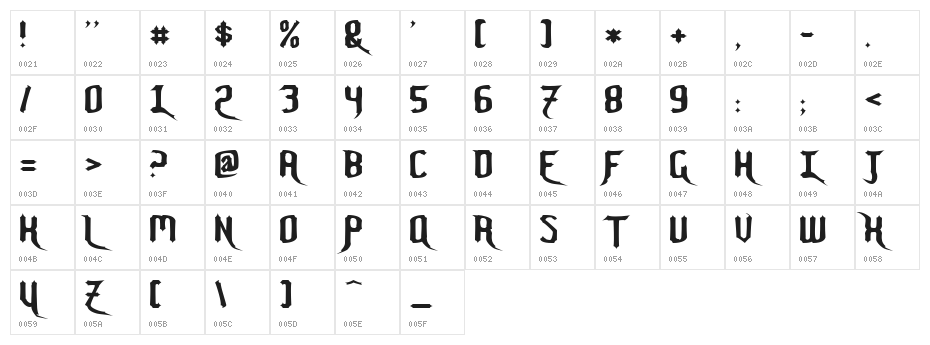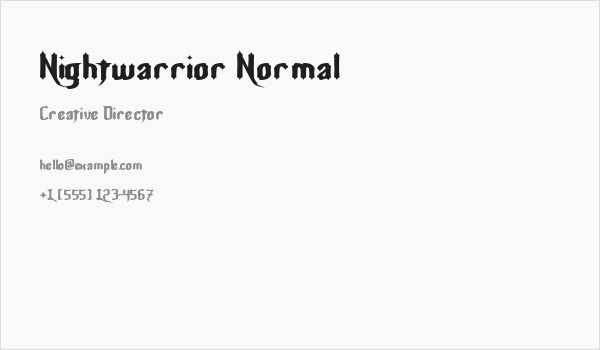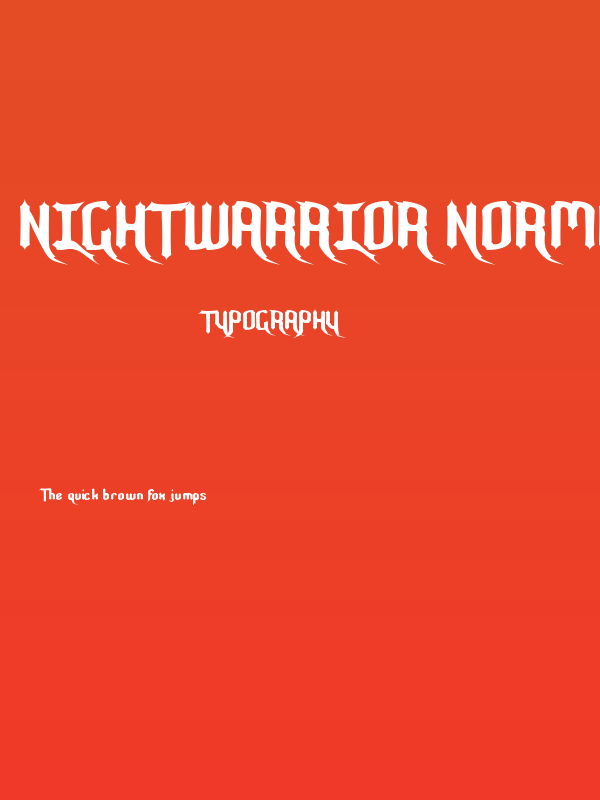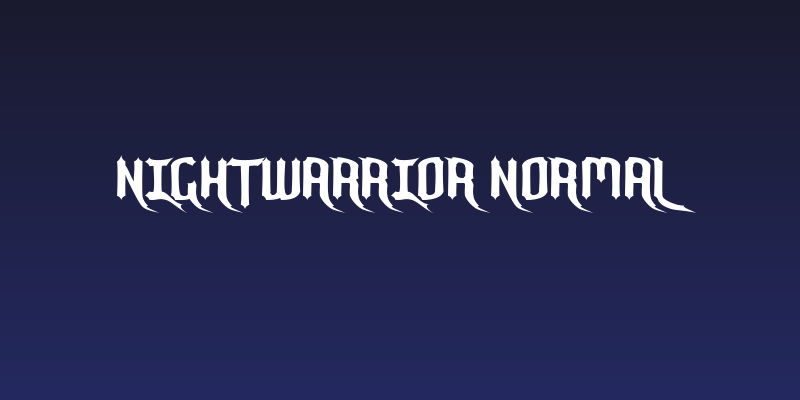
Nightwarrior Normal Font
Nightwarrior Normal Description
This font features a bold and dramatic style with sharp, angular edges and a gothic influence. The uppercase letters exhibit a strong presence with pointed serifs and an aggressive stance, while the lowercase letters maintain a consistent theme with slightly softer curves. The numerals are equally bold, ensuring they stand out in any design. Special characters are designed to match the overall aesthetic, making them suitable for thematic projects. The font's unique style is ideal for creating eye-catching headlines, posters, and branding materials that require a touch of intensity and flair.
| Overall Style | Gothic, Dramatic |
| Use Case | Headlines, Posters, Branding |
| Proposed Projects | Ideal for use in posters, branding, video game titles, and any design requiring a gothic or intense aesthetic. |